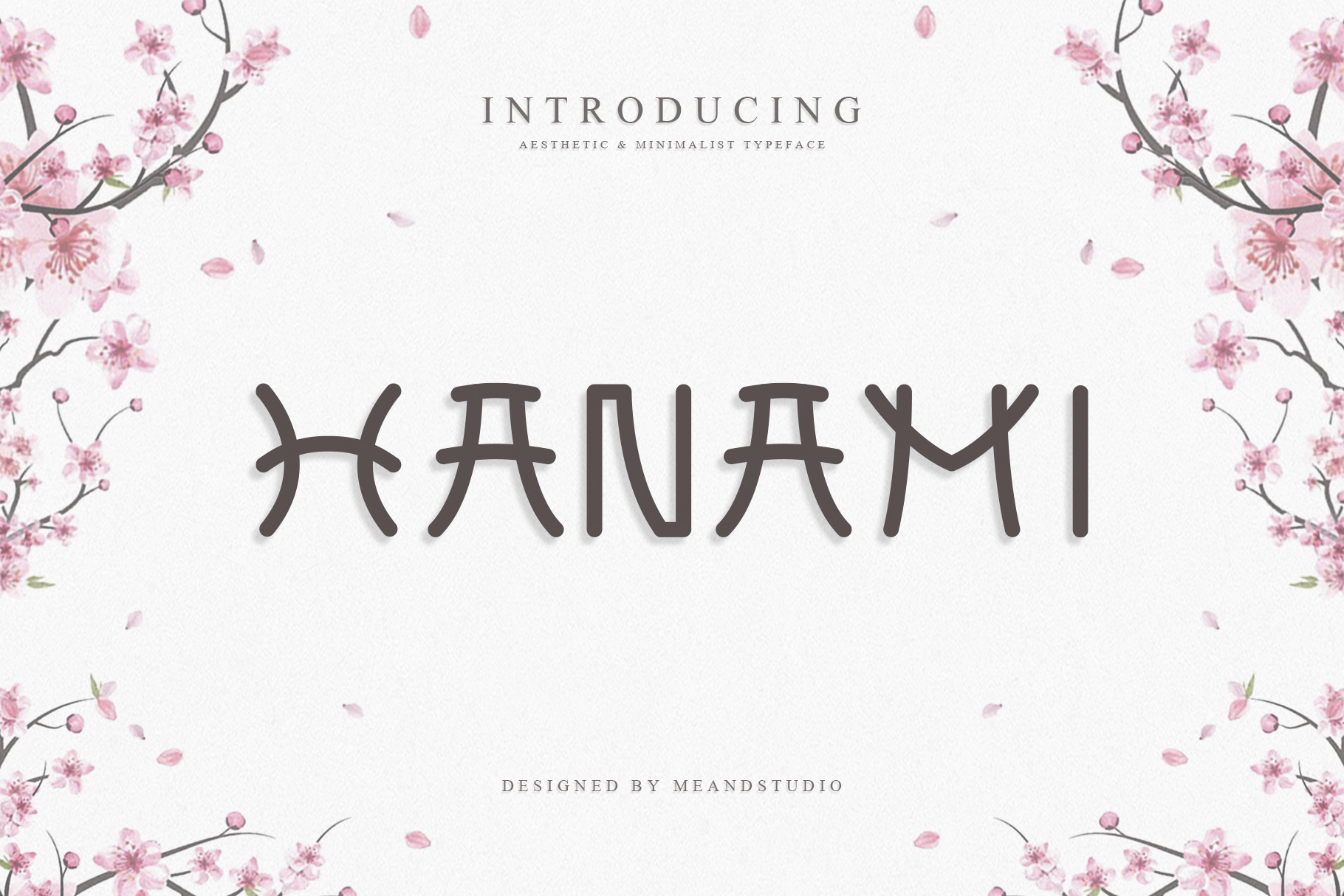
HANAMI – Elegant Japanese Font
HANAMI is a beautifully crafted display font that blends the elegance of traditional Japanese aesthetics with a modern, minimalist twist. With its distinctive strokes and soft curves, HANAMI evokes the delicate beauty of cherry blossoms in full bloom.
This typeface is perfect for headlines, logos, posters, product packaging, branding materials, invitations, and more. Whether you're creating a dreamy wedding invitation or a bold logo for a fashion brand, HANAMI brings a touch of calm sophistication to any project.
Let HANAMI bring elegance, harmony, and character to your next design project.